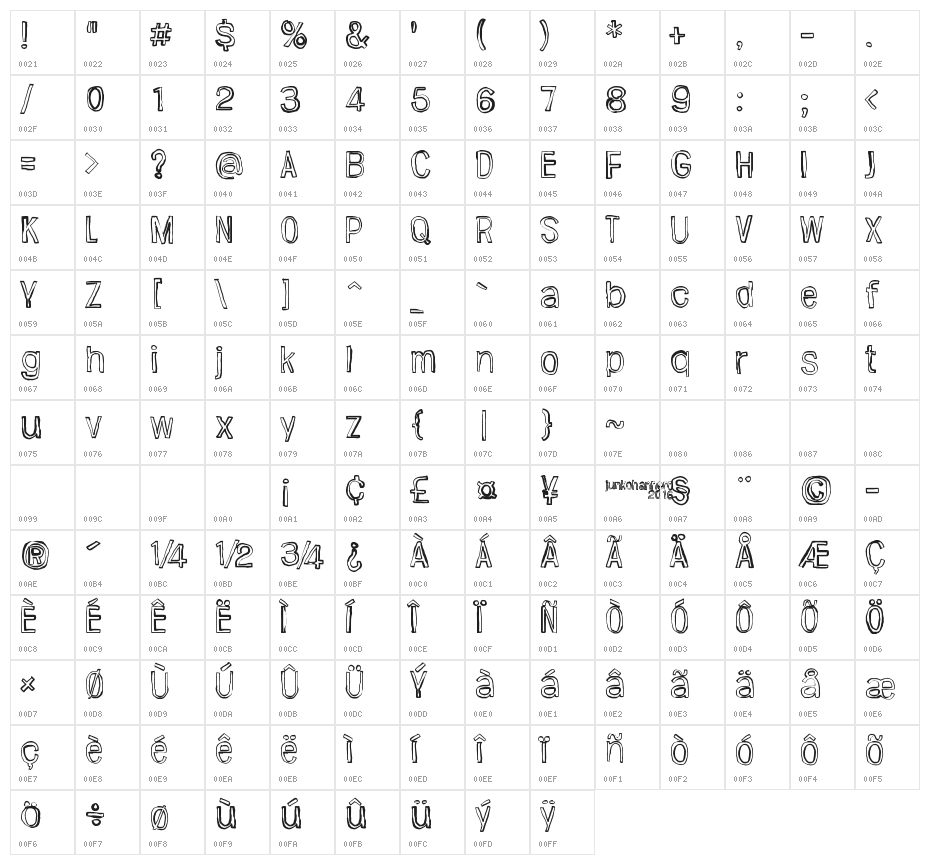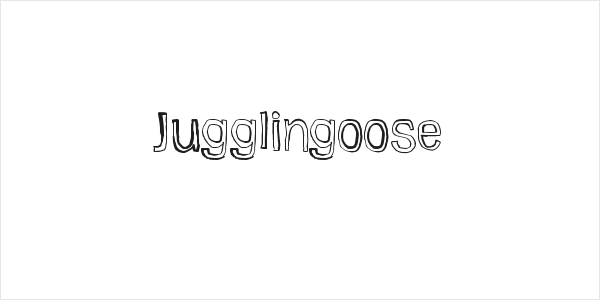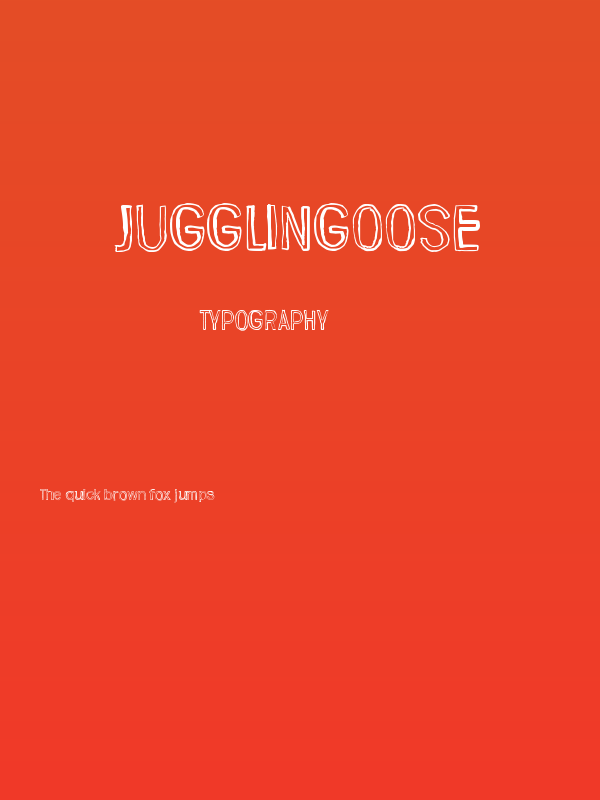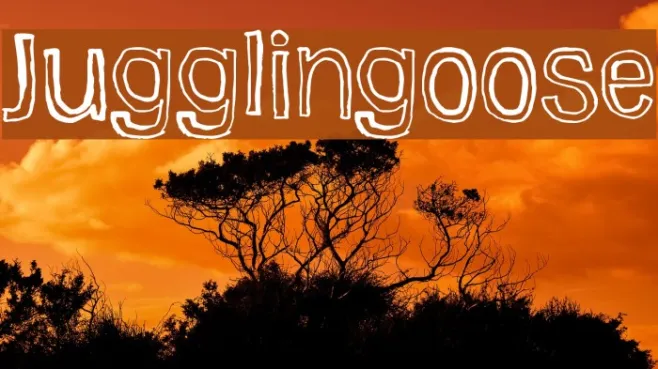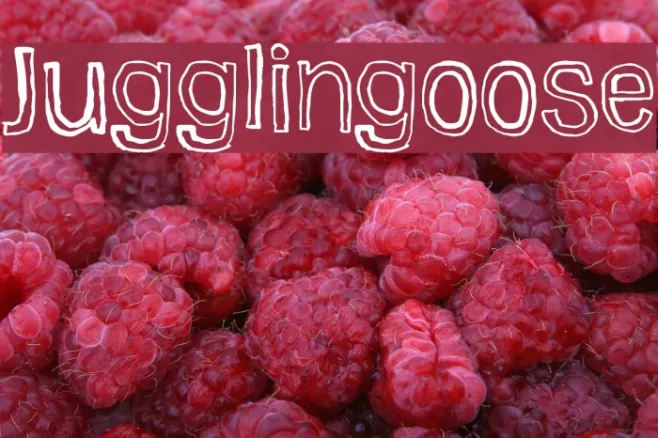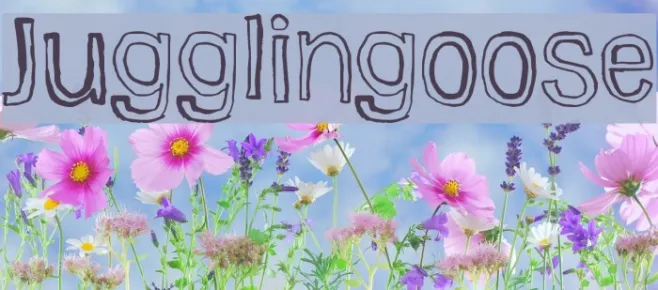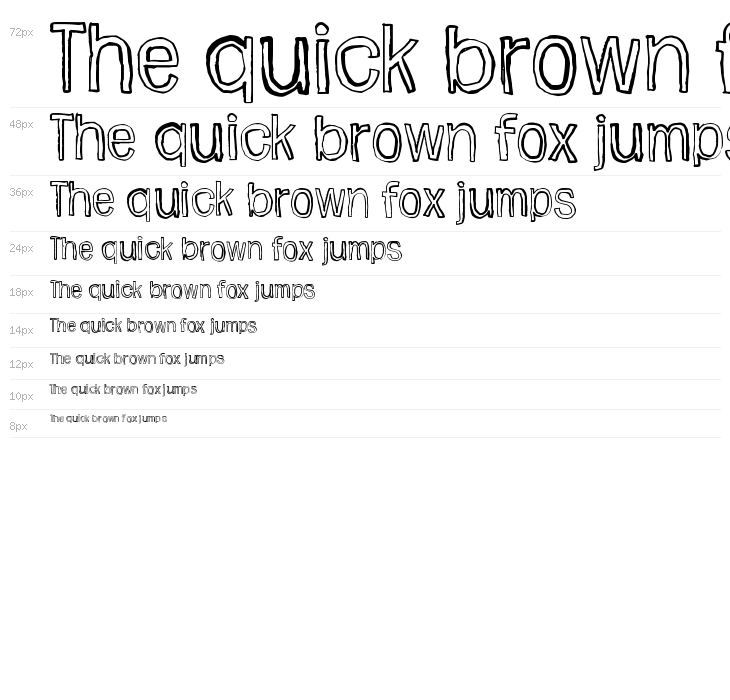
Jugglingoose Font
Jugglingoose Description
This font features a playful and whimsical style, characterized by its hand-drawn appearance and uneven lines. Each character has a unique, slightly irregular outline that gives it a casual and informal feel. The letters are bold and have a sketch-like quality, with varying stroke thicknesses that add to the dynamic and lively look. The font maintains a consistent height across uppercase and lowercase letters, while the numbers and special characters are designed to match the overall aesthetic. This font is perfect for projects that require a fun and creative touch, such as children's books, playful branding, or artistic posters.
| Proposed Projects | Ideal for children's books, playful branding, artistic posters, and creative designs. |